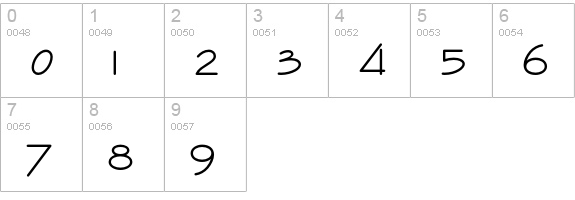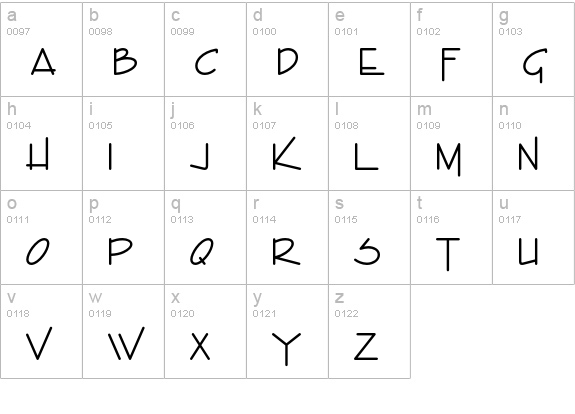
EnviroICG font is a versatile and environmentally inspired typeface that perfectly captures the essence of nature in its design. With its organic shapes and earthy tones, this font is ideal for projects related to sustainability, eco-friendly initiatives, and natural products. Its unique style conveys a sense of harmony and balance, making it a great choice for conveying a message of environmental consciousness. What sets EnviroICG font apart is that it is not only visually appealing but also carries a message of environmental awareness. By using this font in your designs, you are not only making a visual statement but also showing your commitment to protecting our planet. The best part is that EnviroICG font is completely free to download at FontsMarket.com. This means that you can easily access this eco-friendly font and incorporate it into your projects without any cost. So why not add a touch of nature to your designs with EnviroICG font today?